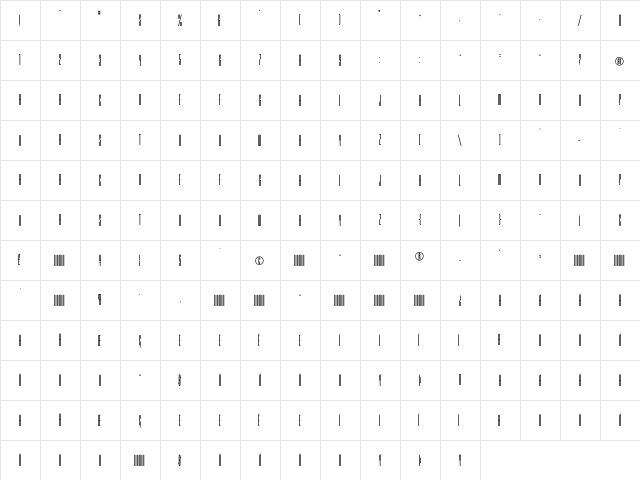
Barcode One Font Preview
Barcode One
Design Context for Barcode Typeface
Barcode uses fixed-width spacing throughout, giving it the structured, systematic character associated with coding environments and technical documentation.
A natural fit for code editors, technical documentation, developer-focused branding, and terminal-inspired UI.
Pro Tip: Pair Barcode with a proportional sans for UI contexts where code-style labels and regular body copy need to coexist.